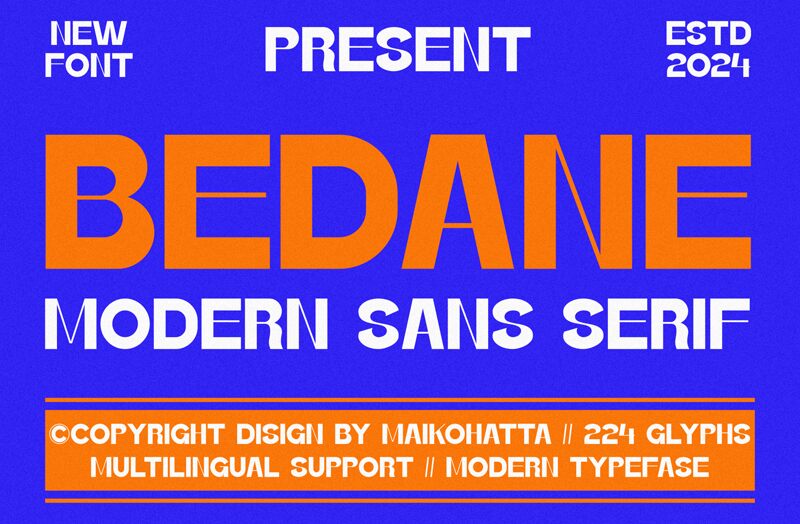
Bedane font family designed by Gilang Ternadho is a modern sans serif typeface consisting of 2 font styles. This free font is a geometric sans serif that reflects a contemporary character with minimalistic and clean features. Bedane is visually appealing, especially in logo design, due to its structured balance and order.
This versatile font is fitting for branding, packaging, magazines, book covers, social media posts, titles, ad campaigns, typography, web designs, and more. Text in Bedane is readable and beautiful whether used on its own or alongside other typefaces.